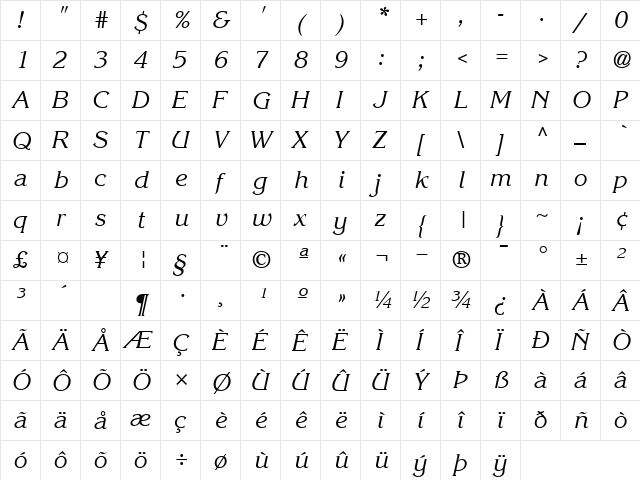
Korinna KursivRegular
Design Context for Korinna Typeface
Korinna is a composed and adaptable typeface that performs quietly and consistently across a wide range of design contexts. Its italic angle brings a sense of urgency and motion to the letterforms.
Pro Tip: Try Korinna for annotation and caption copy alongside an upright companion — the contrast in angle creates a dynamic but ordered typographic system.